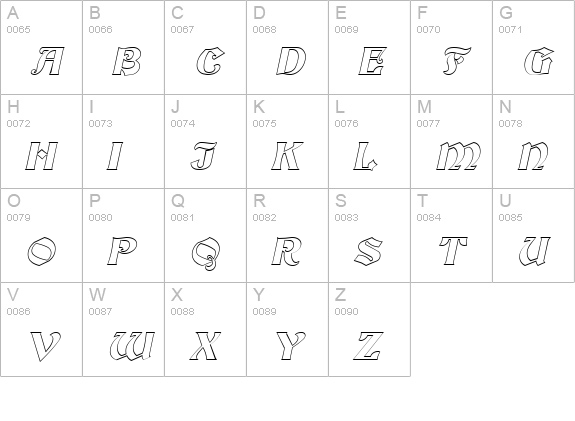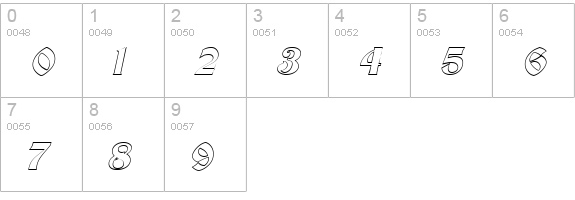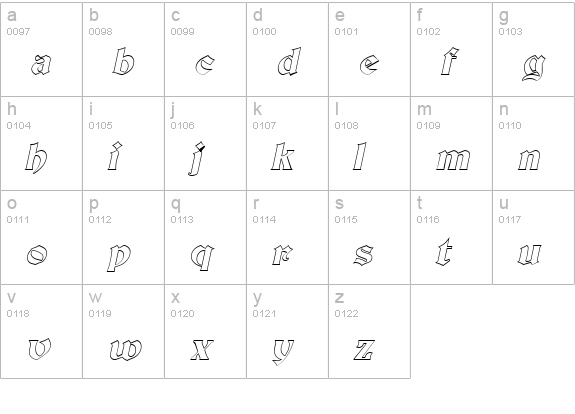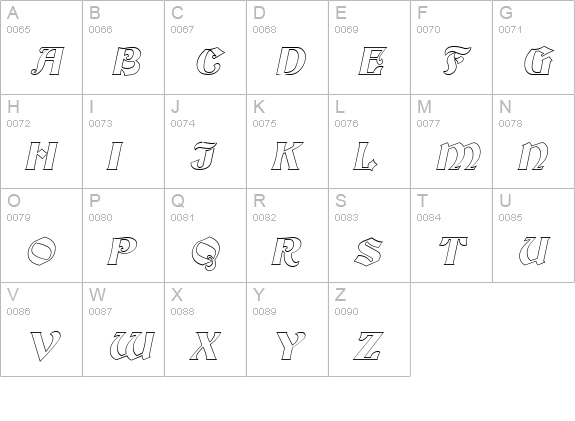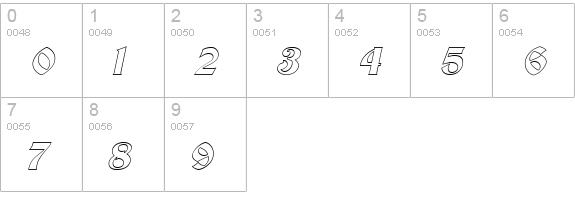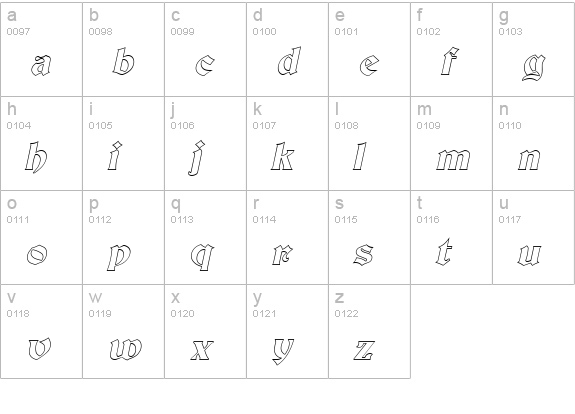
Brandywine-Hollow Italic is a distinctive, italic variant in the Brandywine typeface family \xE2\x80\x94 well suited to design and typography projects.
Brandywine-Hollow Italic font exudes elegance and sophistication with its unique style and graceful curves. Perfect for projects that require a touch of class and charm, this font adds a refined flair to any design. The italic variation of Brandywine-Hollow showcases a sense of movement and fluidity, making it ideal for conveying a sense of sophistication and creativity. The best part is that Brandywine-Hollow Italic font is available for free download at FontsMarket.com. Now you can elevate your designs without breaking the bank, thanks to this stunning typeface that is both stylish and accessible. Don't miss out on the opportunity to enhance your projects with the beauty of Brandywine-Hollow Italic font – download it today and let your creativity flow freely.